Lineto
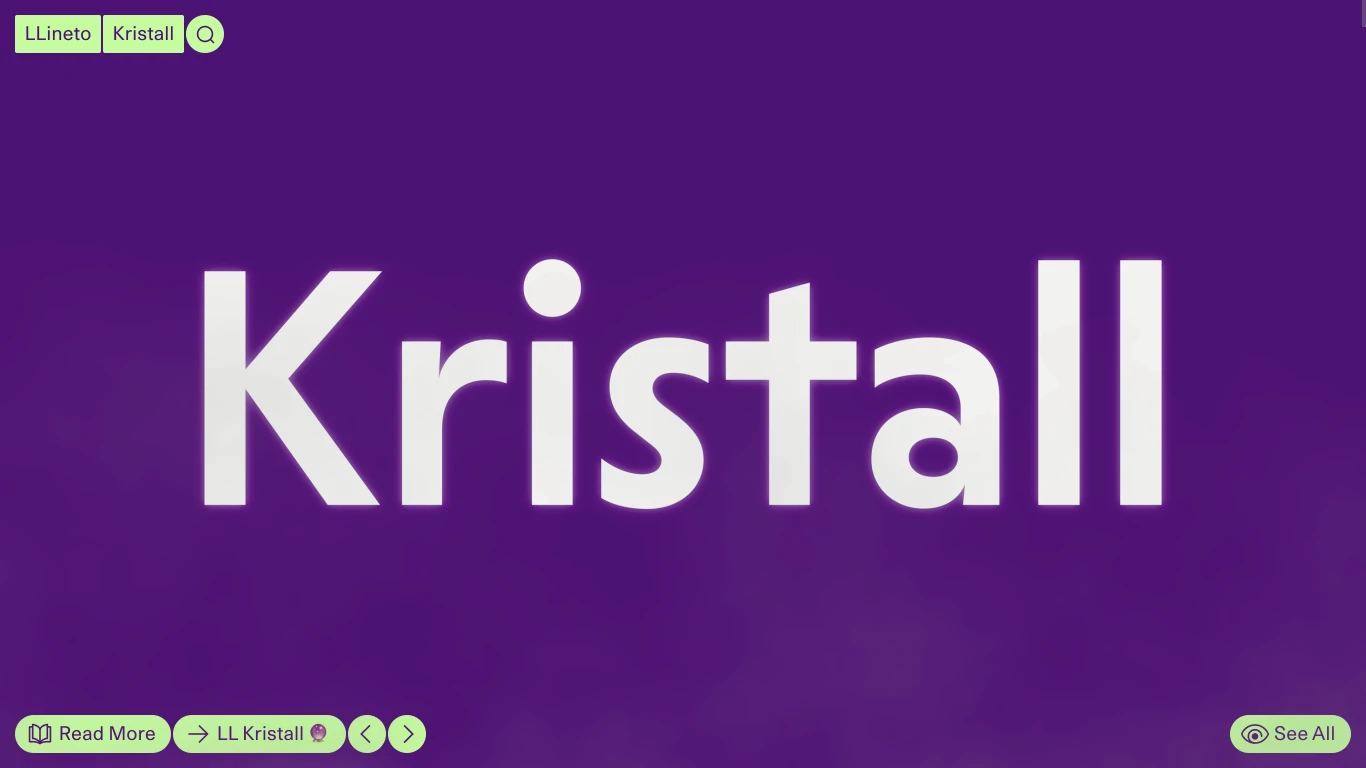
Switzerland
1993
Lineto, established in 1993 by Cornel Windlin and Stephan Müller, is a Swiss type foundry renowned for its innovative typefaces and contributions to digital typography. Notable works include Alpha Headline, designed by Windlin in 1991, and Akkurat, created by Laurenz Brunner in 2004, which won the Swiss Federal Design Award in 2006. Other significant typefaces are LL Circular and LL Brown, both designed by Brunner. In 2007, Jürg Lehni joined the venture, further enhancing its creative direction.